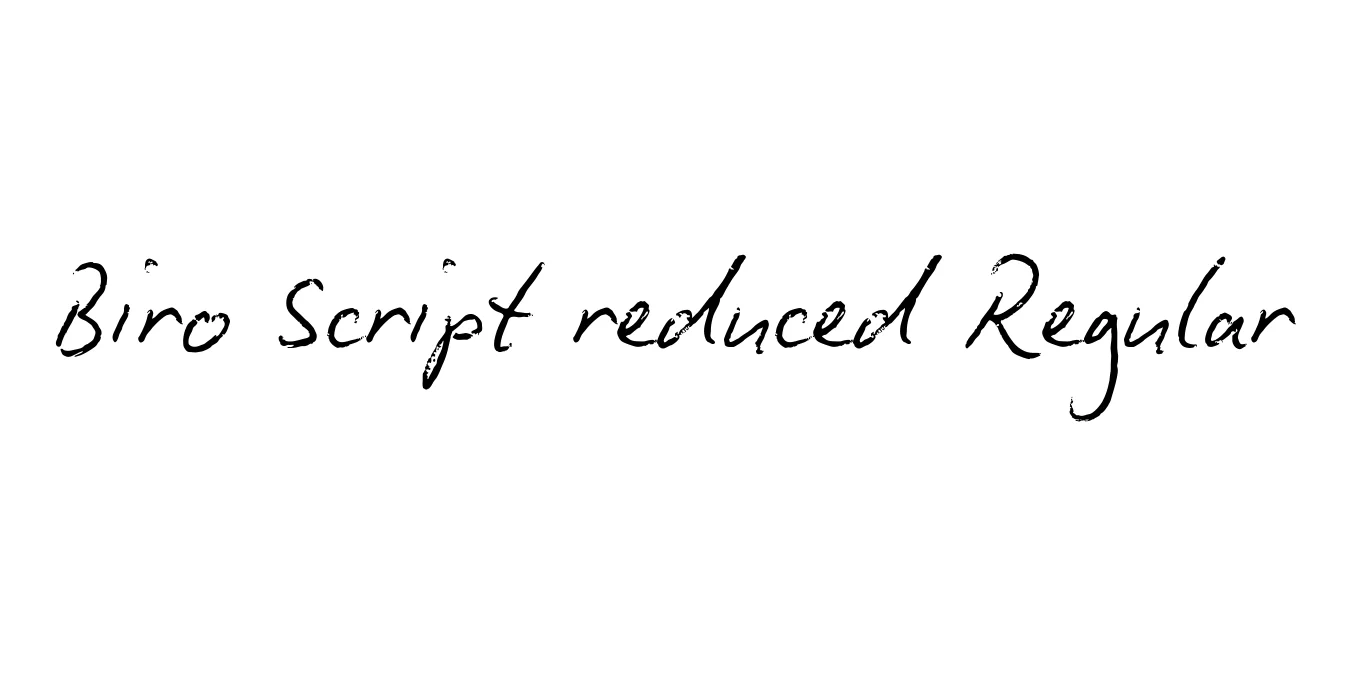
Biro Script reduced Regular
Designed by David Buck
| Font Name | Biro Script reduced |
| Category | Script / Handwriting |
| Designer | David Buck |
| Similar Fonts | Bradley Hand, Lucida Handwriting, Journal, Higgins Handwriting |
Biro Script reduced Regular is a popular handwriting typeface designed by David Buck of the SparkyType foundry. Originally released in the early 2000s, this font was specifically developed to mimic the natural, everyday appearance of writing with a ballpoint pen—commonly referred to in many regions as a 'Biro.' The 'reduced' designation typically refers to a optimized character set that focuses on the most essential glyphs while maintaining the fluid, organic motion of human penmanship.
This typeface stands out for its authentic casual aesthetic, avoiding the overly polished look of many digital script fonts. It captures the subtle inconsistencies and rhythmic flow found in real handwriting, making it an excellent choice for designers who need to add a personal, human touch to their digital projects. Its consistent line weight and legible structure ensure that it remains readable even at smaller sizes, effectively bridging the gap between artistic script and functional text.
Biro Script reduced Regular Best Uses
Perfect for creating realistic handwritten letters, invitations, and thank-you notes.
Great for sidebar notes, annotations, or pull-quotes that require a human touch.
Ideal for casual brands, boutique shops, or organic product packaging.
Useful for social media overlays and blog graphics that want to feel approachable and friendly.